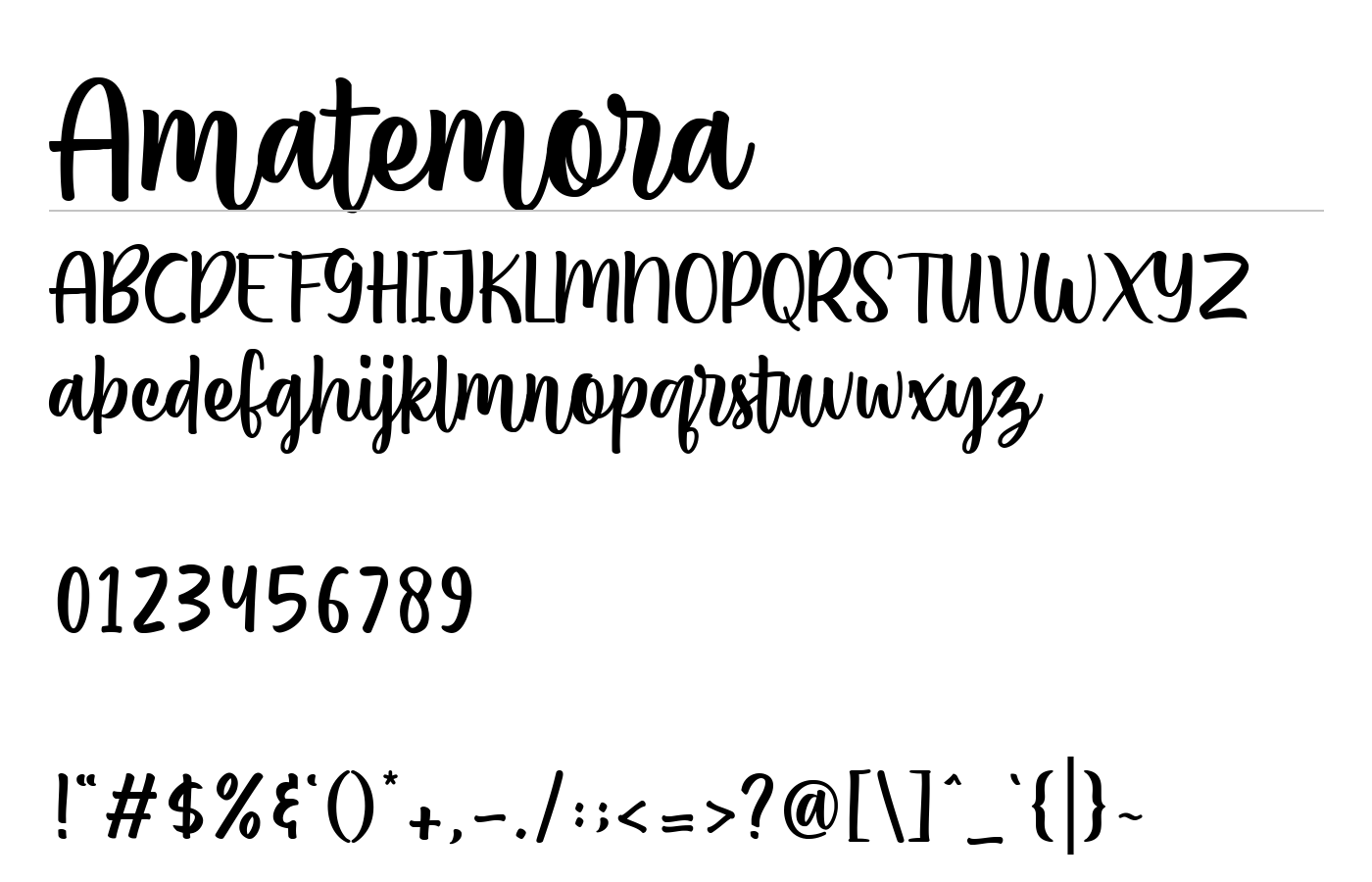
Amatemora is a playful and modern script font with a casual, hand-lettered feel. Featuring smooth, rounded strokes and moderate contrast, it combines an inviting, approachable style with clear readability, making it ideal for creative branding, social media graphics, and youthful editorial projects. Its friendly personality suits designs that want to convey warmth and charm.
Amatemora Font
About Amatemora Font